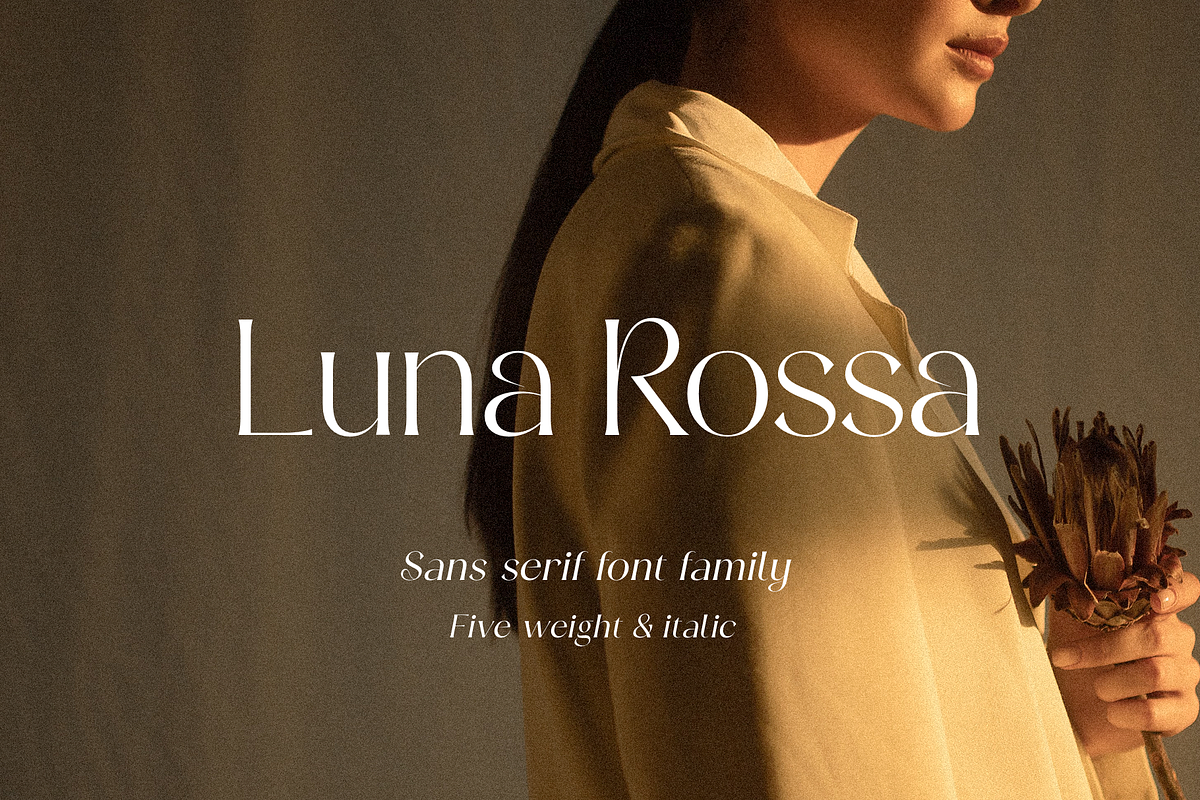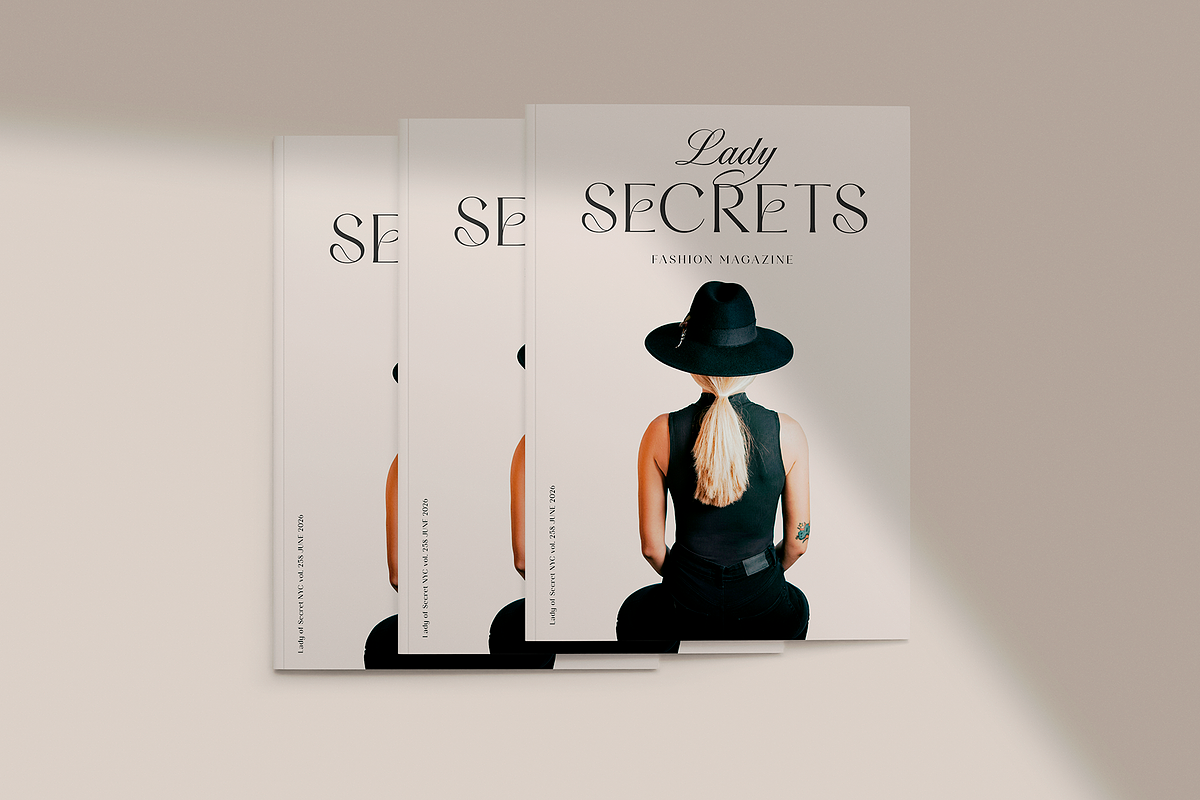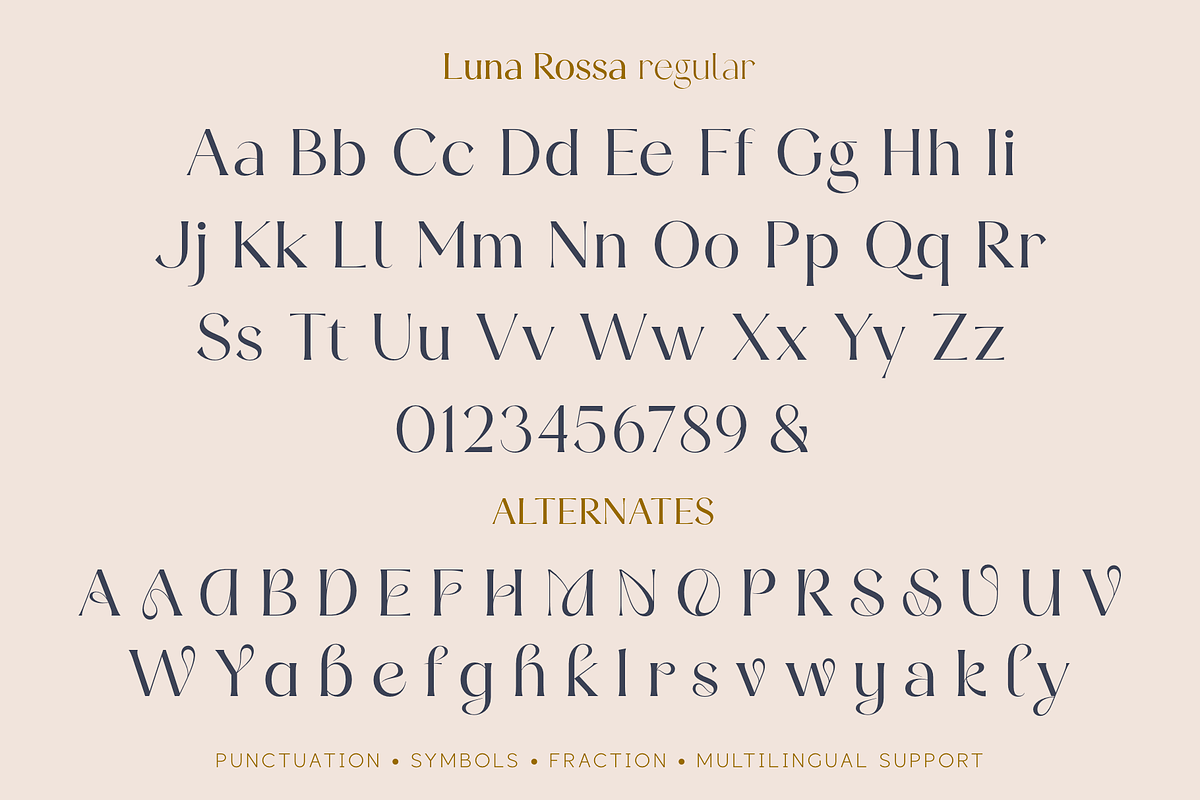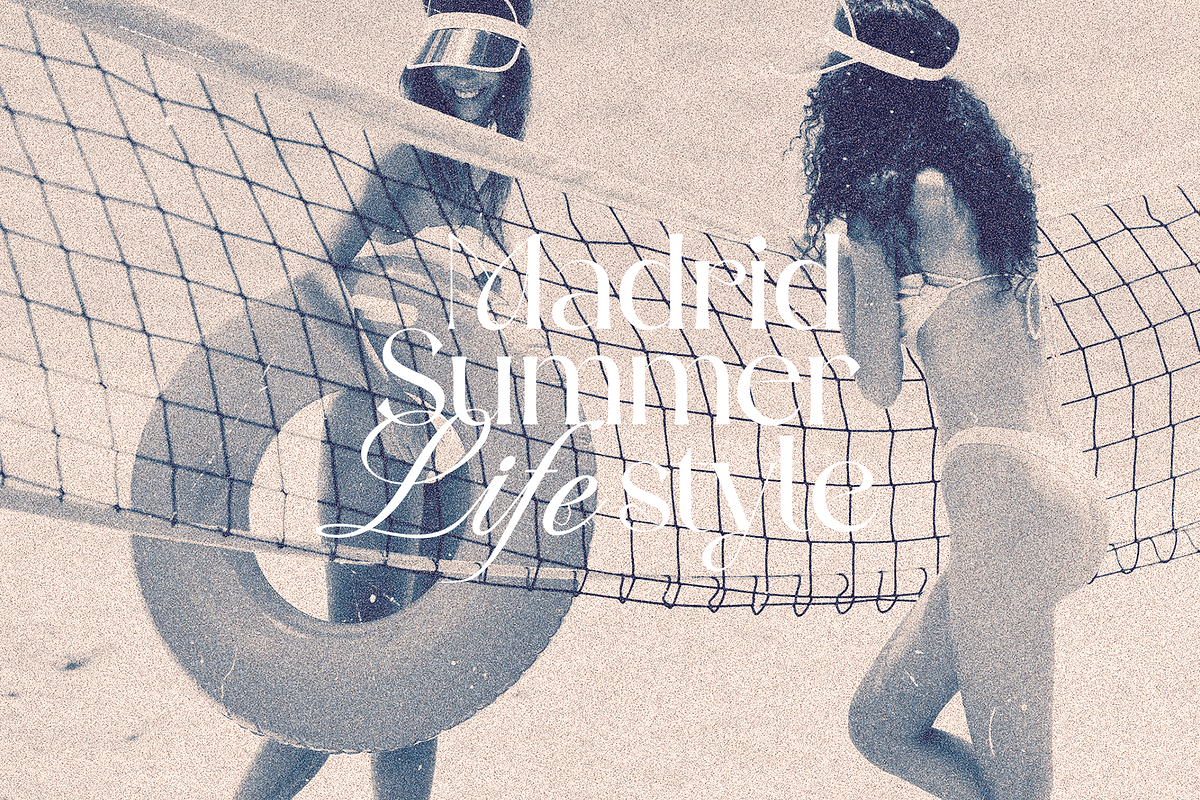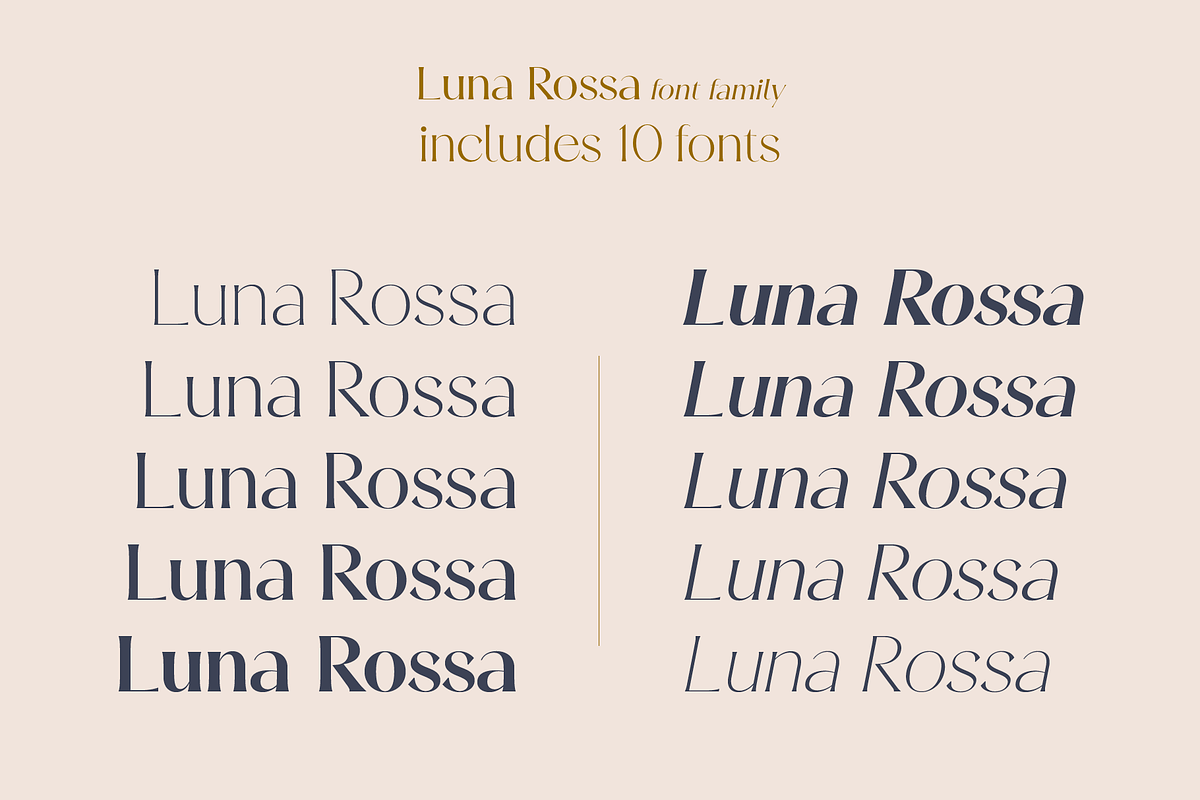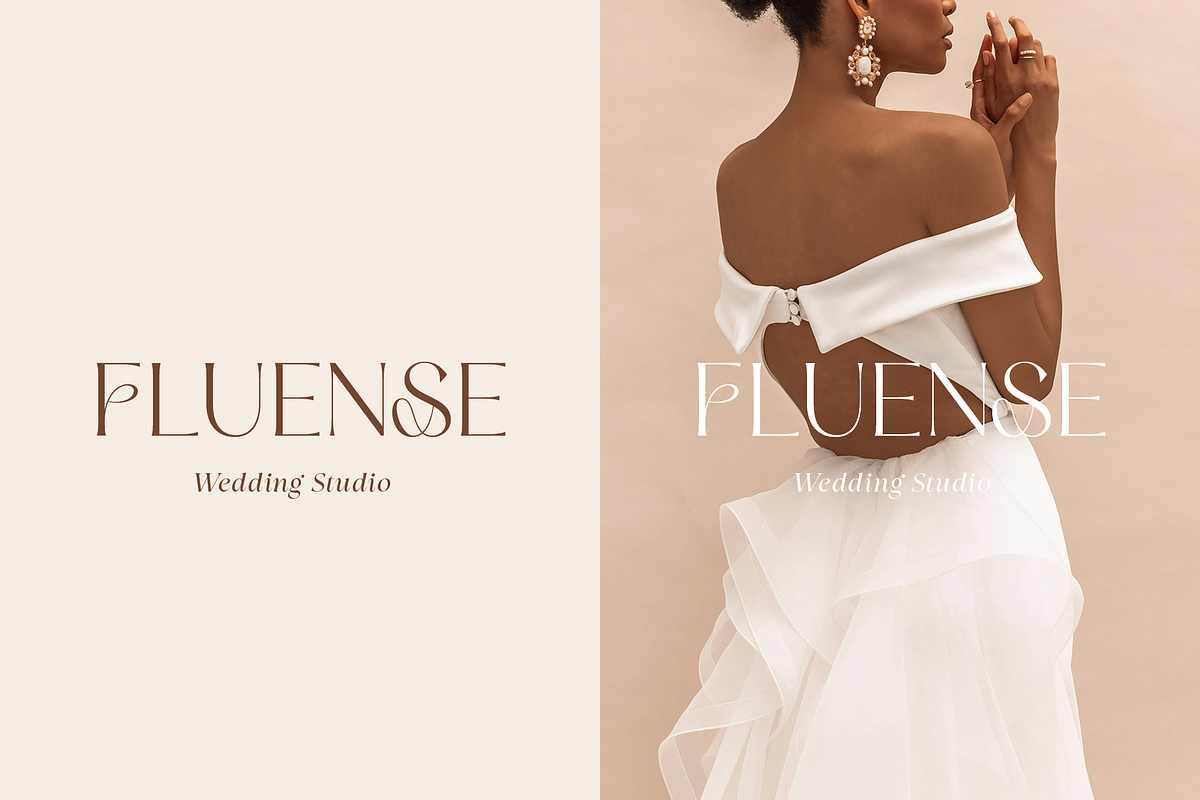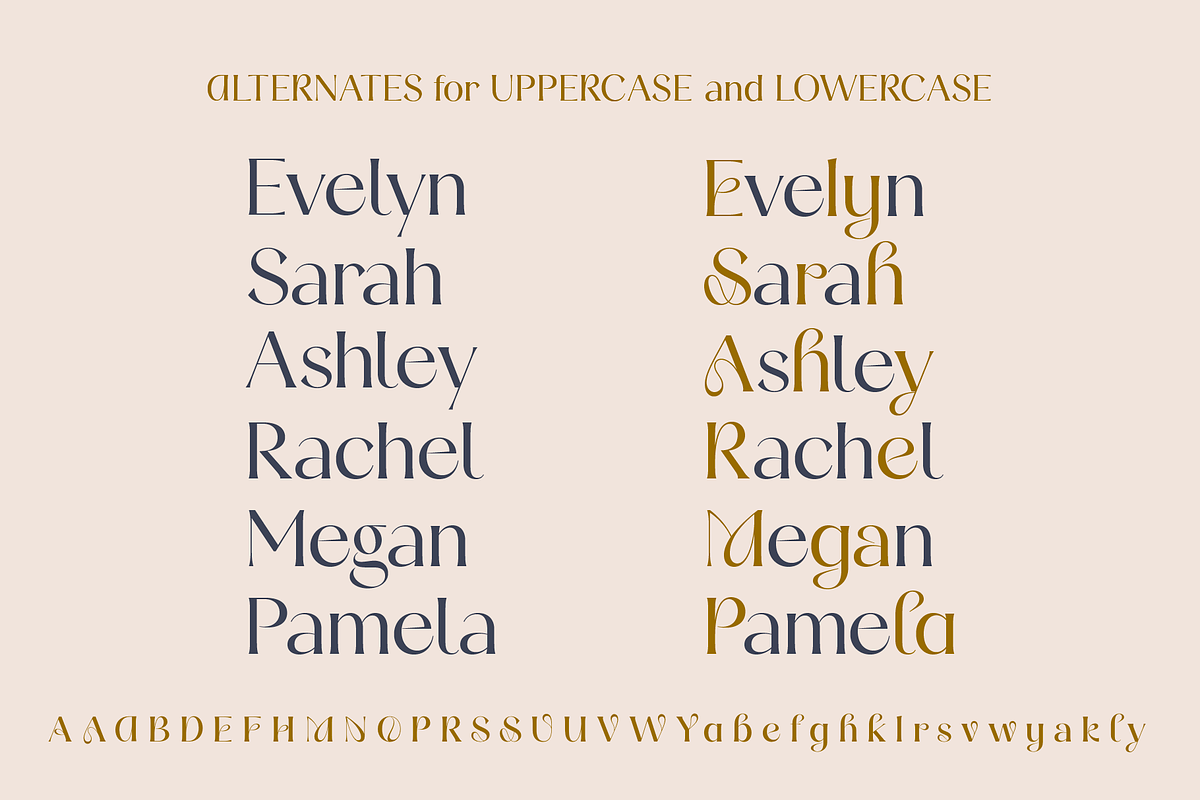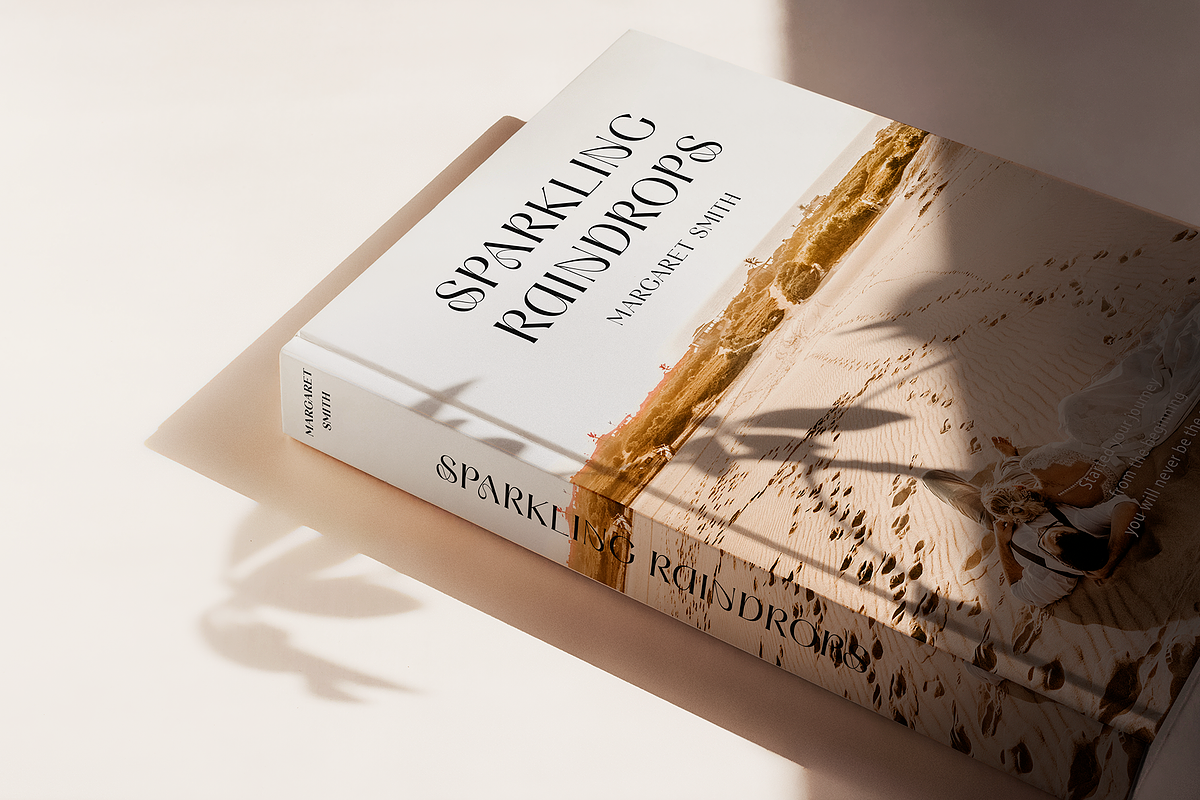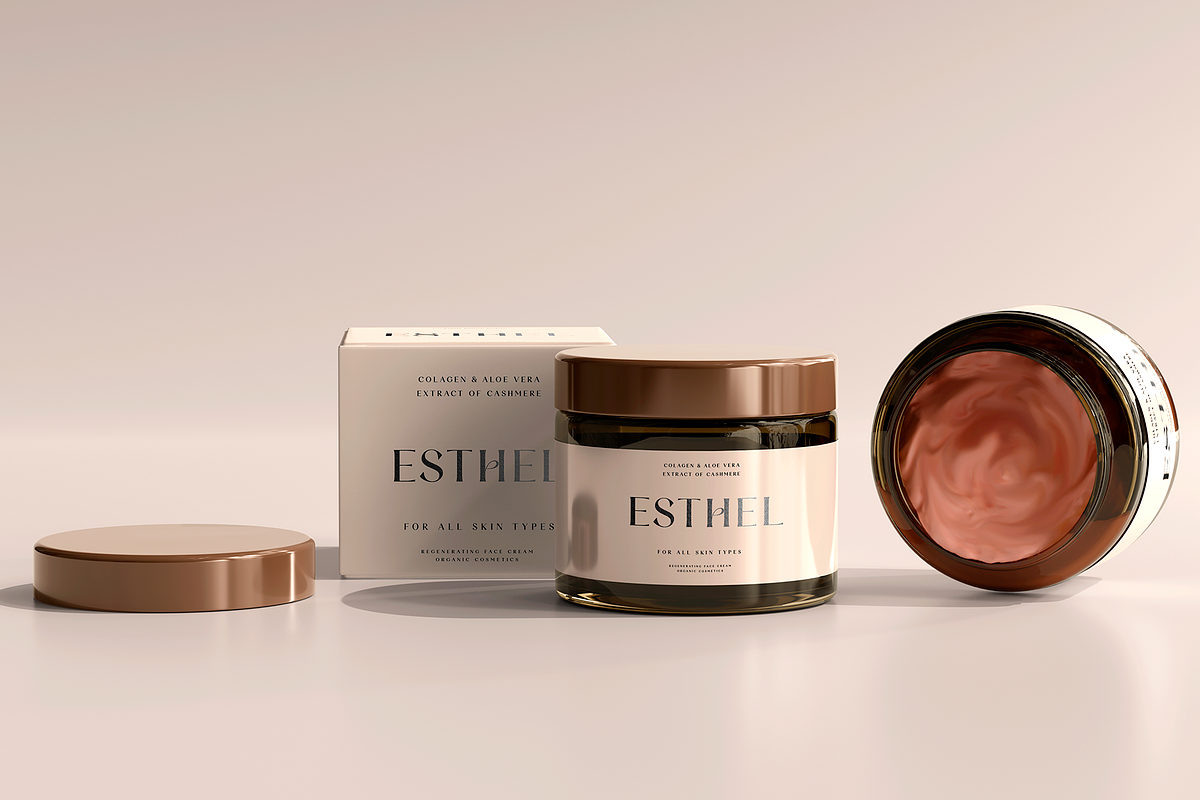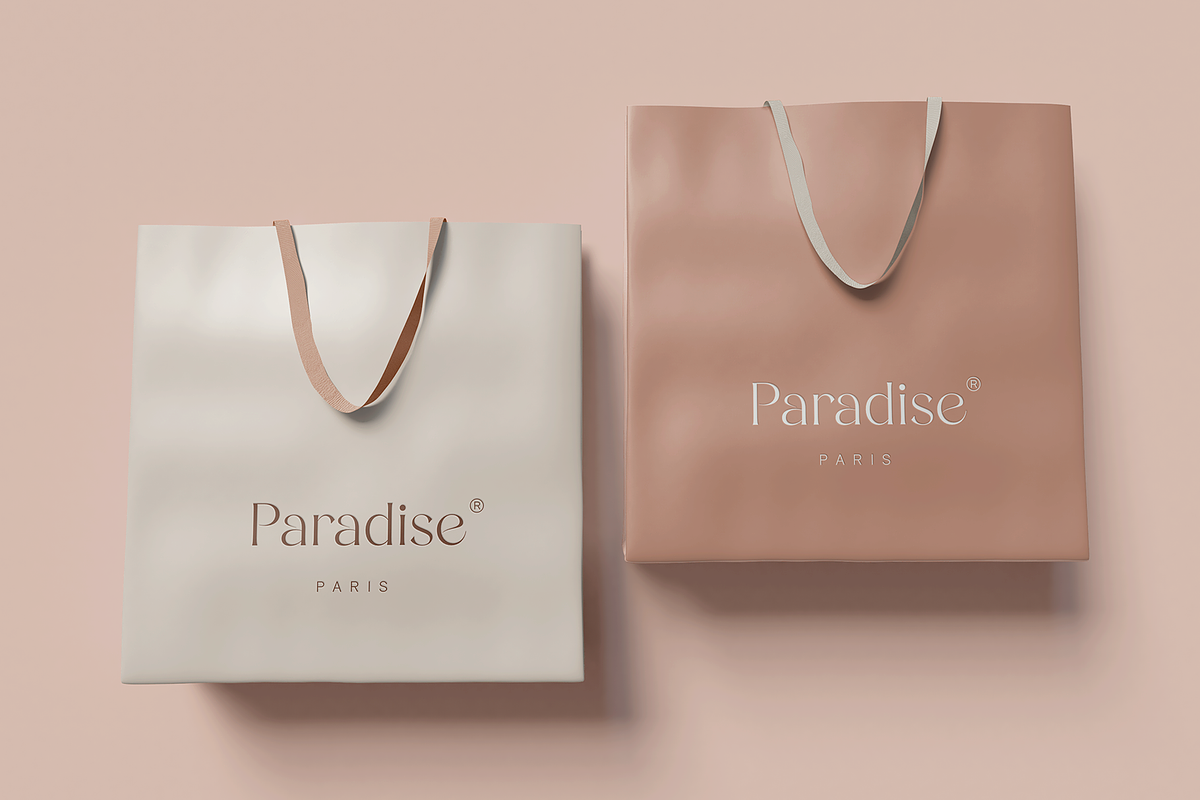
Luna Rossa
Luna Rossa is an elegant, modern, and expressive contrast sans-serif font family, and a great fashionable solution for your project. It includes upright and Italic style, each of them has four weights from extra light to bold. This is a multi-purpose font that is perfect for fashion project, it is contrasted, modern and easy to read. With it, you can create logos, banners, use in advertising, packaging, book covers and magazines, headings, descriptions and much more.
Following international symbols support: ÀÁÂÃÄÅĄÇĆÈÉÊËĘÌÍÎÏÐÑŃŁÒÓÔÕÖØÙÚÛÜŚŠŸÝŹŻŽßàáâãäåçèéêëìíîïðñòóôõöøùúûüýÿąćęłńśšźżž
-Full alphabet with Uppercase and Lowercase A-z
-Numbers, fractions
-Punctuation and symbols
-Alternates for Uppercase and Lowercase